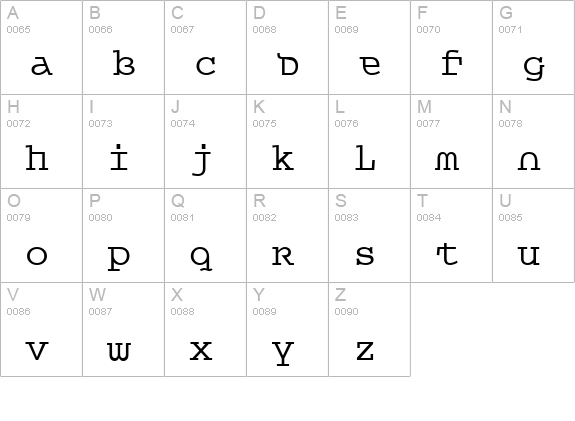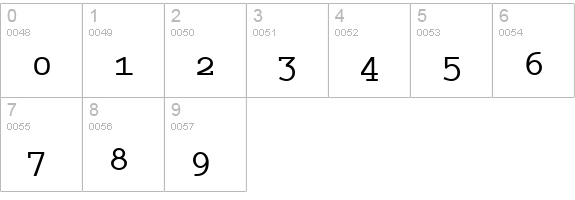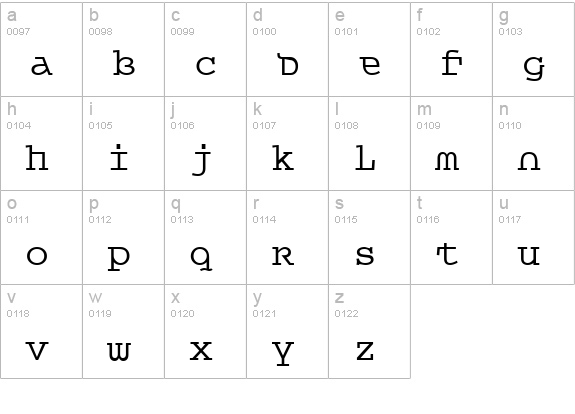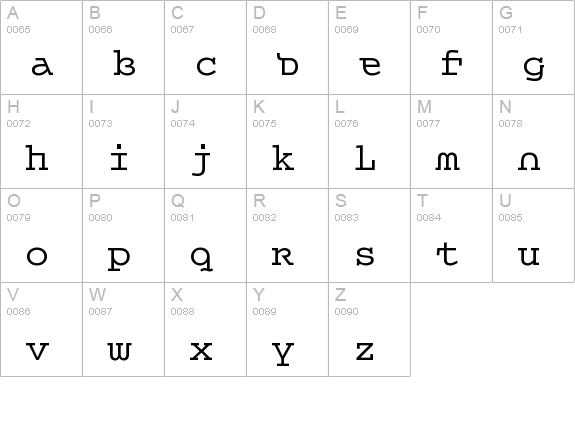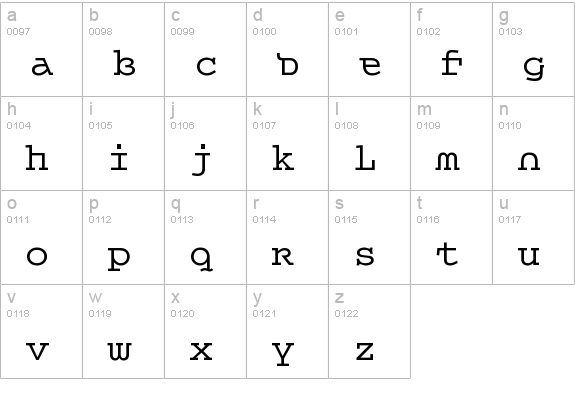
Queer Theory font is a stunning display typeface that perfectly captures the essence of the queer community. With its bold and unique letterforms, this font stands out from the crowd, making a powerful statement. Inspired by the principles of queer theory, this font challenges societal norms and embraces diversity and inclusivity. Its playful curves and unconventional shapes represent the fluidity and non-conformity that are at the core of queer identity. Queer Theory font is not just visually captivating but also carries a deeper meaning. It is a celebration of individuality, a reminder that everyone has the right to be their authentic selves. One of the most remarkable aspects of Queer Theory font is that it is freely available to download at FontsMarket.com. This means that anyone can access and use this font, eliminating barriers and ensuring that creativity knows no bounds. Whether you're designing a poster, creating a logo, or simply expressing yourself through typography, Queer Theory font empowers you to make a bold statement and embrace your uniqueness. It is a testament to the power of design in fostering inclusivity and advancing social change. So go ahead, download Queer Theory font and let your creativity soar.